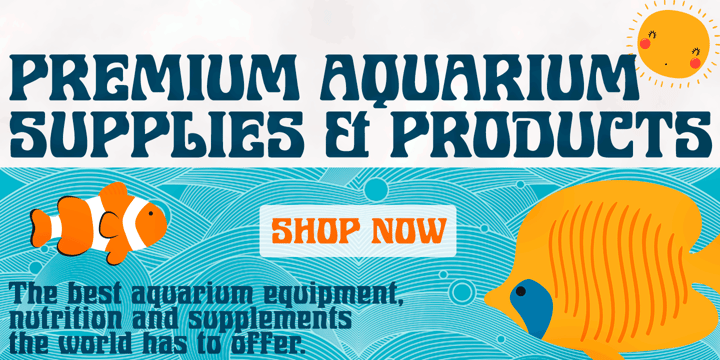
Ars Nova
Ars Nova by PintassilgoPrints
Ars Nova Font Family was designed by Erica Jung, Ricardo Marcin and published by PintassilgoPrints. Ars Nova contains 1 styles. More about this family
About Ars Nova Font Family
Ars Nova is an up-to-date incarnation of the Art Nouveau flair. Suited for striking typographic effects. Suited for some nostalgic pleasure. Specially suited for creative minds. Cheers!
Designers: Erica Jung, Ricardo Marcin
Publisher: PintassilgoPrints
Foundry: PintassilgoPrints